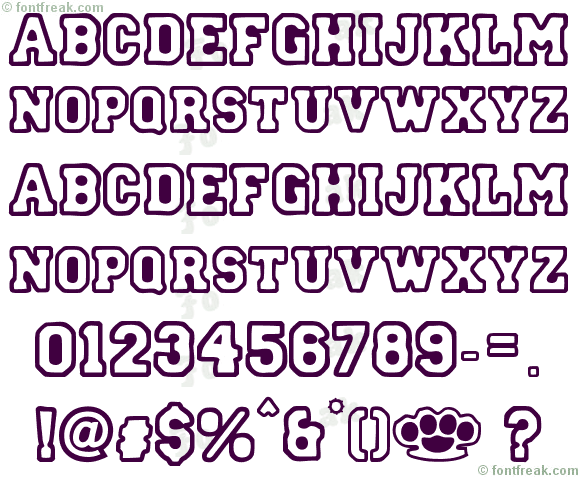
Street College
About Street College
The Street College font, crafted by woodcutter Manero, is a striking display typeface that captures the essence of urban culture and youthful exuberance. This font is characterized by its bold, chunky letters that exhibit a playful, slightly uneven stroke weight, creating a sense of dynamism and movement. The contrast between the thick and thin parts of each character adds visual interest, while the generous spacing between letters enhances readability. Decorative elements such as rounded edges and quirky shapes make this typeface stand out, evoking a sense of fun and creativity.
Ideal for a variety of applications, the Street College font shines in contexts such as event posters, particularly those targeting youth-focused gatherings or street festivals. Its unique aesthetic is also perfect for branding materials, such as logos for urban clothing lines or skate shops. Additionally, this font finds a fitting place in social media graphics, where it can help convey a lively and energetic message. Content creators looking to add flair to their projects will appreciate its versatility in digital publications, including blogs and newsletters.
The target audience for this font primarily includes graphic designers seeking to infuse a trendy, modern look into their projects, as well as small business owners aiming to capture the attention of a younger demographic. Content creators who want to make their visuals pop will also find this font immensely appealing.
What sets the Street College font apart is its ability to blend fun with functionality. It stands as a testament to contemporary design trends while remaining accessible through its freeware license. For those looking to enhance their creative projects, the Street College font free download offers an exciting opportunity to elevate design with a vibrant, urban flair.